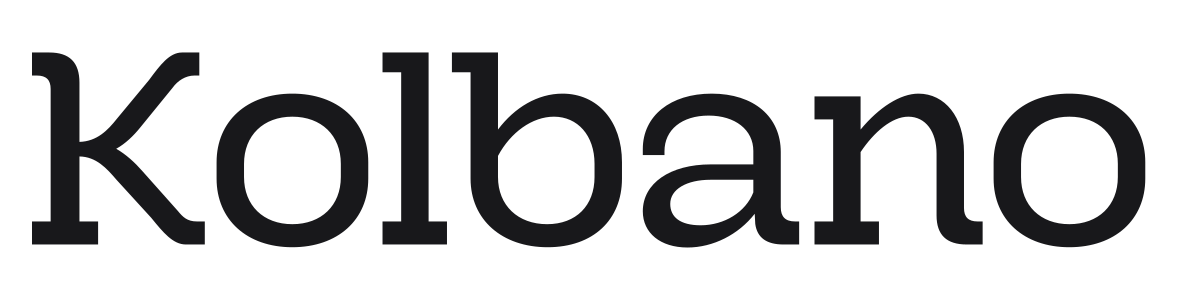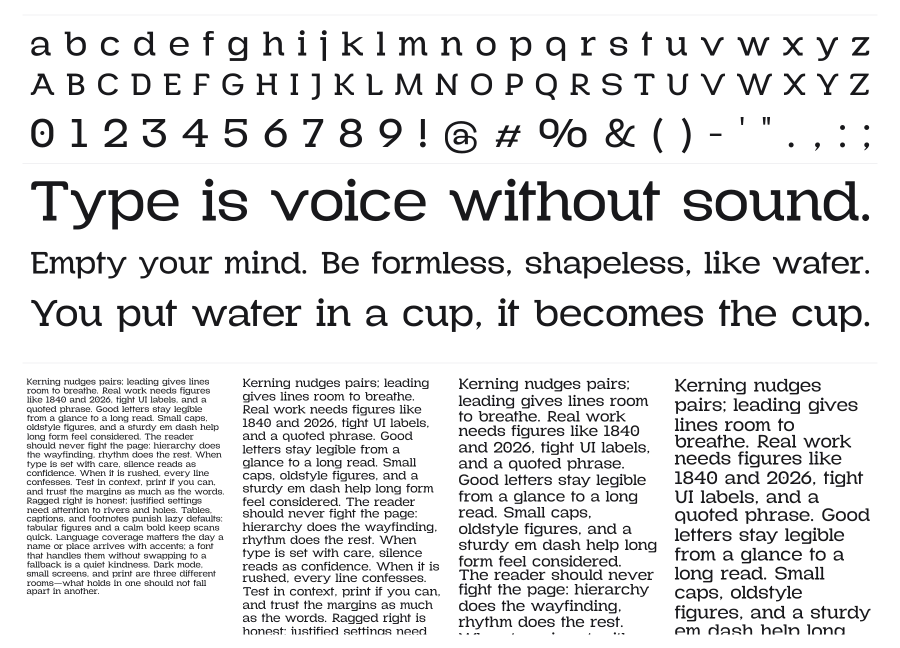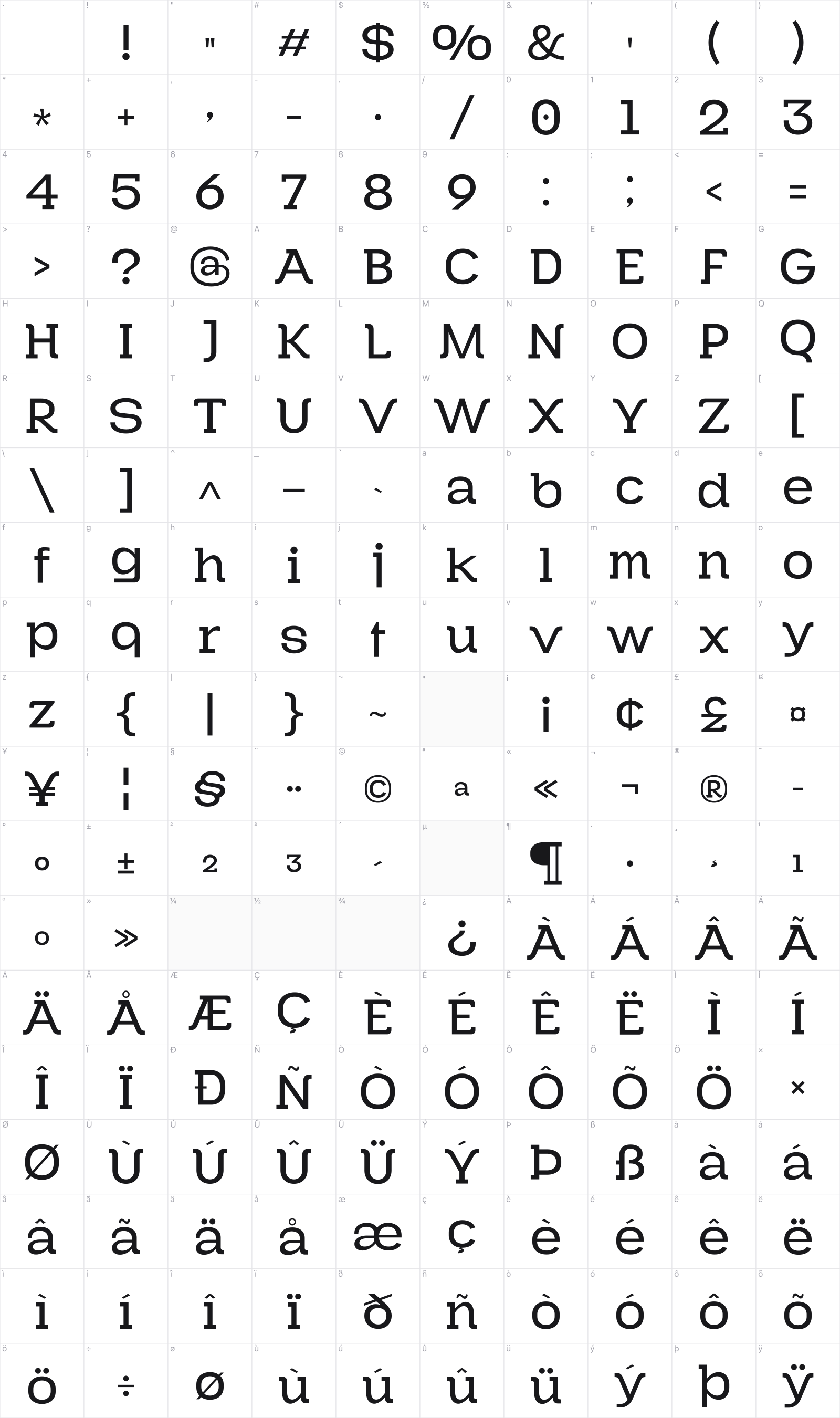
Kolbano
Kolbano is a clean geometric slab-serif with low stroke contrast and sturdy, evenly weighted strokes. Its slightly bracketed serifs and open apertures make it feel modern and approachable without veering into novelty. It sits comfortably across a range of sizes, from editorial headlines to body copy.